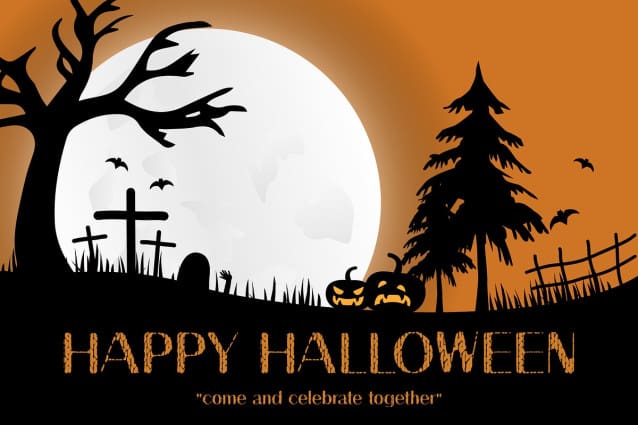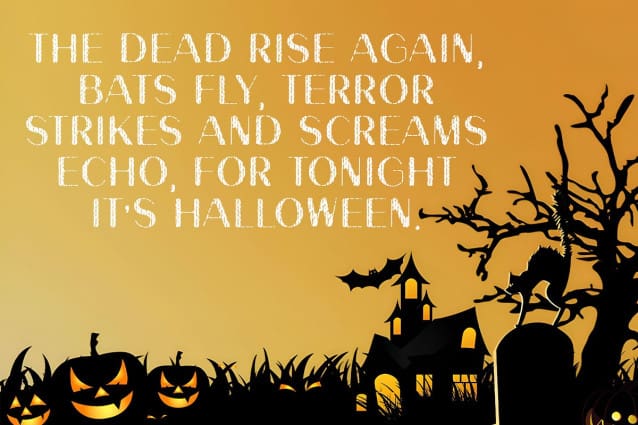
Fencing Ghost Font
Fencing Ghost Font is a dark, scary and horrify handmade font that will help your create your upcoming horror/halloween related projects! It contains uppercase, lowercase, number, punctuation and symbols. Fencing Ghost font is perfect for horror projects but can also be used for various projects like packaging, presentations, logo, headlines, lettering, posters, branding, quotes, titles, magazines headings, web layouts, advertising, invitations, packaging design, books, and nearly any creative design.